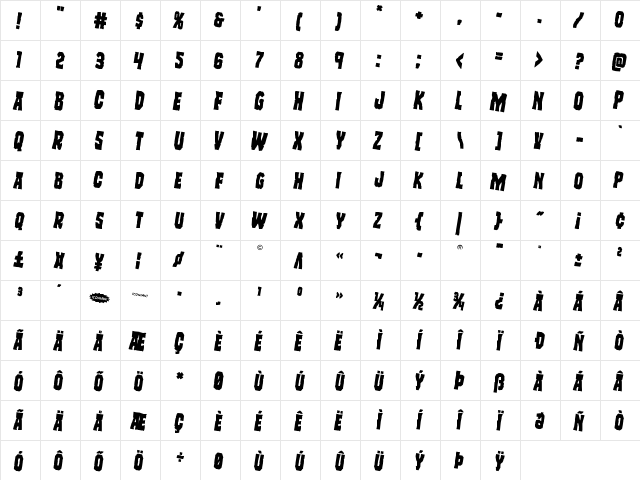
Freakfinder Rotated 2 Regular
Design Context for Freakfinder Rotated 2 Typeface
Freakfinder Rotated 2 is a composed and adaptable typeface that performs quietly and consistently across a wide range of design contexts.
Pro Tip: Use Freakfinder Rotated 2 in both headline and body roles to test its range before committing to a single application.